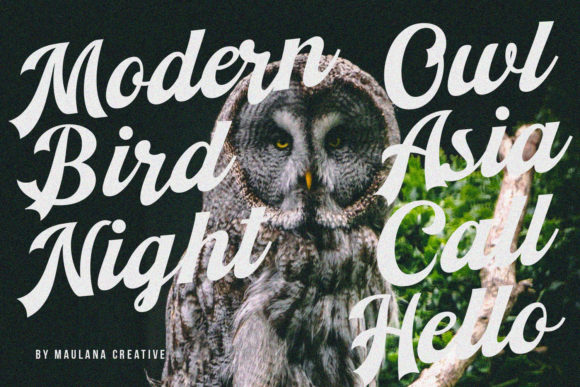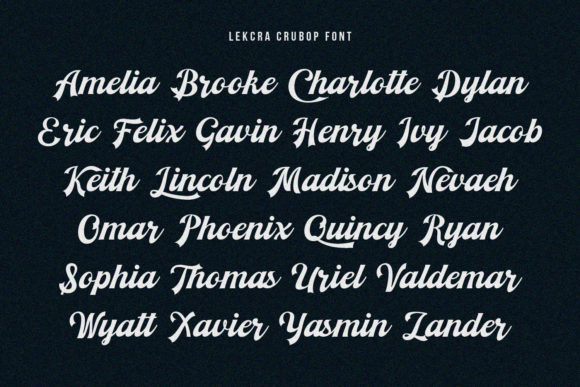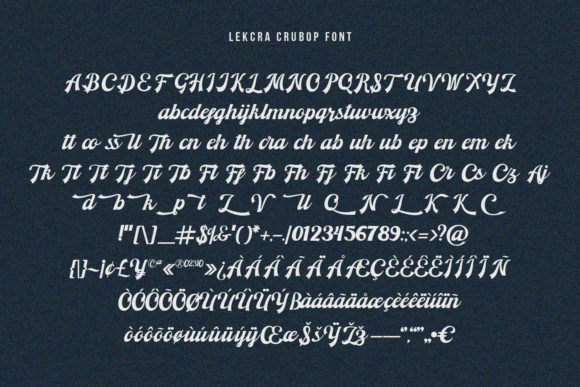
Introduction to Lekcra Crubop Font
Lekcra Crubop is an incredibly distinct handwritten font, defined by a vintage touch.
Fall in love with its incredibly versatile style and use it to create gorgeous wedding invitations, beautiful stationary art, eye-catching social media posts, and much more .
Key Features of Lekcra Crubop Font
Why Choose Lekcra Crubop Font?
Lekcra Crubop Font offers exceptional quality and versatility, making it a valuable addition to your design toolkit. Whether you’re creating for personal projects or commercial use, Lekcra Crubop Font delivers professional results.